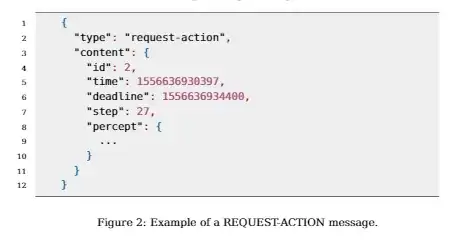
I created a \lstdefinelanguage command for some JSON blocks I'd like to add into my document, I followed the answer to this question:
In the answer the answerer defines the language like so:
The answerer uses the bera font, which makes the JSON look far more visually appealing. I'd like to copy this. The only problem is that when I add the \usepackage{bera} command all the text in my entire document is changed to this font, which I don't want. I only want the bera font to be used when I create a listing using the JSON language. What is the best way to do this?
UPDATE:
When I try \usepackage{beramono} as suggested by @Davislor I get this output:
The output I'd like looks like this, which I get when I use \usepackage{bera}:
• You might try \usepackage{beramono}, which sets only \ttfamily, possibly \usepackage[scaled=0.9]{beramono} if you want it slightly bigger or smaller. You could also use DejaVu Sans Mono, which is another fork of Bitstream Vera Mono. – Davislor Jun 07 '20 at 18:26
• Beramono seems to be different than bera. I show the difference in my updated question. – PEREZje Jun 07 '20 at 19:40
• You don’t give a MWE for me to test, but all the bera package does is set the encoding to T1, load beraserif, berasans and beramono, and load textcomp. Since it was written in 2004, you no longer need textcomp; it’s now in the LaTeX kernel. – Davislor Jun 07 '20 at 20:07
Since you select \ttfamily, it should be sufficient to \usepackage{beramono} and \usepackage[T1]{fontenc}, but you might be using a bit of \berasans too. – Davislor Jun 07 '20 at 20:08
• Alternatively, load fontspec, \setsansfont{DejaVu Sans}, and \setmonofont{DejaVu Sans Mono}. – Davislor Jun 07 '20 at 20:09
• I just added the MWE, but your second answer helped out. If I added \usepackage[T1]{fontenc} it seems to have the proper font. It still feels like quite a struggle to do something as simple as change font, but I'm a LaTex newb I think so thanks! – PEREZje Jun 07 '20 at 20:20
It also works without fontenc if you use the \usepackage{bera}. Then you have the bera serif and bera mono included:
DejaVu Sans Mono sample
This uses more modern extensions of the same fonts.